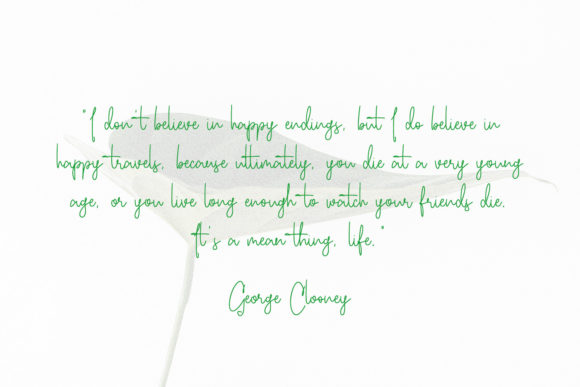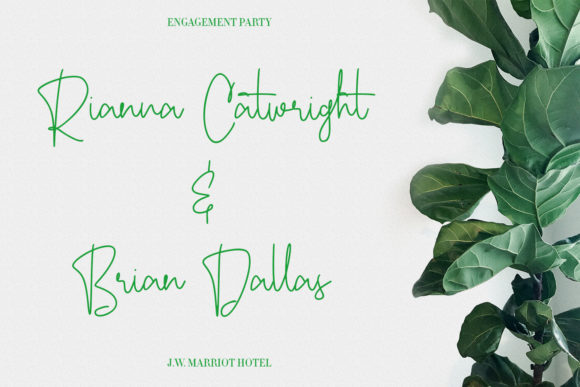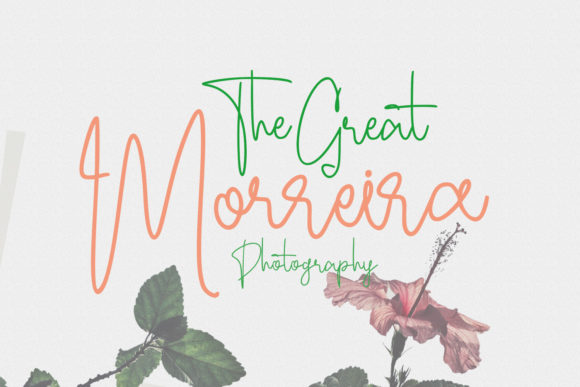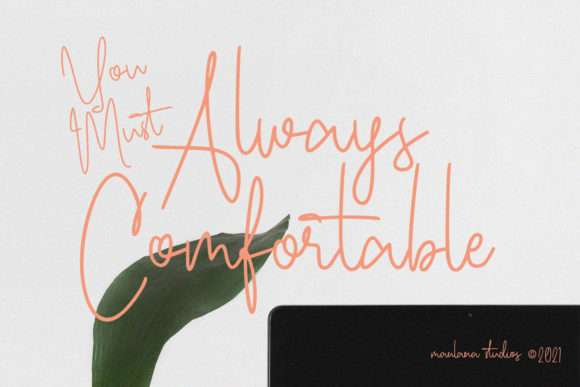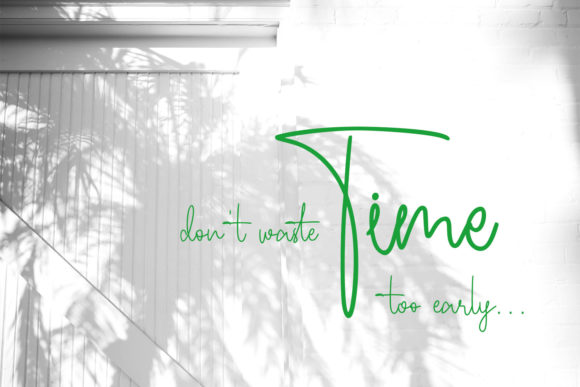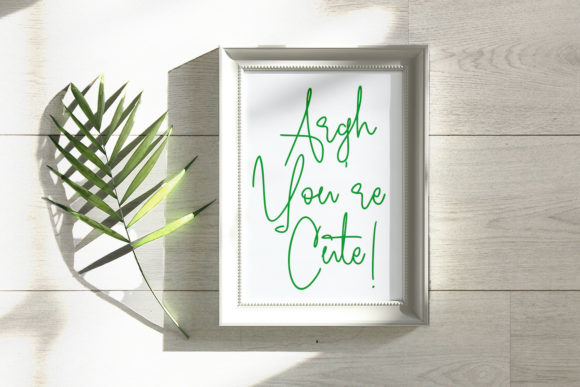
Ecaliptycus Script Font: Elevate Your Design with Elegance
In the world of typography, a font can make or break a design. For designers and crafters looking to add a touch of luxury and sophistication to their projects, Ecaliptycus Script Font is an excellent choice. This beautiful, handwritten font is designed to bring a delicate and personalized feel to a wide range of designs, from wedding invitations to logos.
What is Ecaliptycus Script Font?
Ecaliptycus Script is a lightweight and delicate handwritten font that exudes elegance and refinement. Its intricate strokes and flowing lines create a sense of movement and fluidity, making it perfect for designs that require a personal touch. Whether you’re working on a wedding invitation, a thank-you card, or a logo, Ecaliptycus Script Font is sure to add a touch of luxury and sophistication.
Characteristics of Ecaliptycus Script Font
Ecaliptycus Script Font has several characteristics that make it an excellent choice for designers and crafters. Some of its key features include:
• Lightweight and delicate: Ecaliptycus Script Font is designed to be light and airy, making it perfect for designs that require a subtle touch.
• Handwritten: The font’s handwritten style gives it a personal and intimate feel, making it perfect for designs that require a human touch.
• Elegant and refined: Ecaliptycus Script Font is designed to exude elegance and refinement, making it perfect for high-end designs.
Uses for Ecaliptycus Script Font
Ecaliptycus Script Font is versatile and can be used for a wide range of designs, including:
• Wedding invitations: The font’s elegant and refined style makes it perfect for wedding invitations, adding a touch of luxury and sophistication to your designs.
• Thank-you cards: Ecaliptycus Script Font is also great for thank-you cards, adding a personal and intimate touch to your designs.
• Weddings: The font’s elegant style makes it perfect for wedding designs, including wedding programs, place cards, and more.
• Greeting cards: Ecaliptycus Script Font is also great for greeting cards, adding a touch of elegance and refinement to your designs.
• Logos: The font’s unique and elegant style makes it perfect for logos, adding a touch of sophistication and refinement to your brand.
Why Choose Ecaliptycus Script Font?
There are many reasons why designers and crafters choose Ecaliptycus Script Font for their projects. Some of the benefits of using this font include:
• Unique and elegant: Ecaliptycus Script Font is a unique and elegant font that will add a touch of sophistication and refinement to your designs.
• Versatile: The font is versatile and can be used for a wide range of designs, from wedding invitations to logos.
• Easy to read: Despite its delicate style, Ecaliptycus Script Font is easy to read, making it perfect for designs that require a clear and concise message.
Tips for Using Ecaliptycus Script Font
To get the most out of Ecaliptycus Script Font, here are a few tips to keep in mind:
• Use it sparingly: Ecaliptycus Script Font is a delicate font, so it’s best to use it sparingly to avoid overwhelming your design.
• Pair it with other fonts: The font pairs well with other fonts, so don’t be afraid to experiment with different combinations to find the perfect look for your design.
• Experiment with colors: Ecaliptycus Script Font looks great in a variety of colors, so don’t be afraid to experiment to find the perfect color for your design.
Ecaliptycus Script Font is a beautiful and elegant font that is perfect for designers and crafters looking to add a touch of luxury and sophistication to their projects. Its delicate and handwritten style makes it perfect for a wide range of designs, from wedding invitations to logos. With its versatility, ease of use, and unique style, Ecaliptycus Script Font is an excellent choice for anyone looking to elevate their design with elegance.